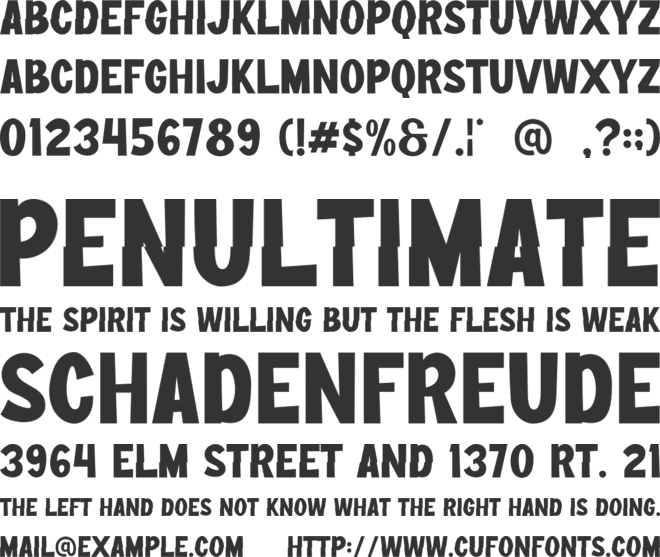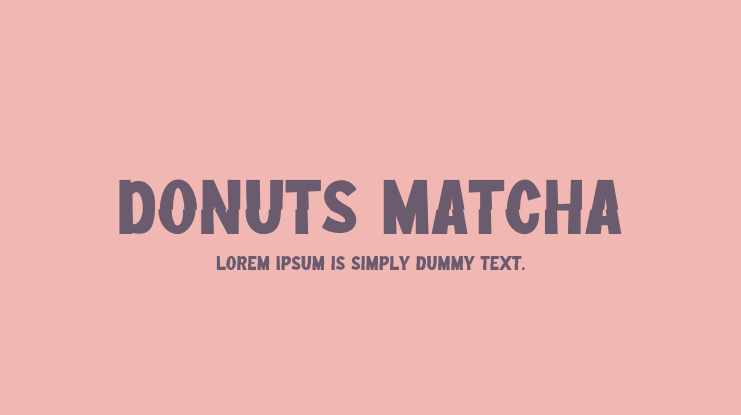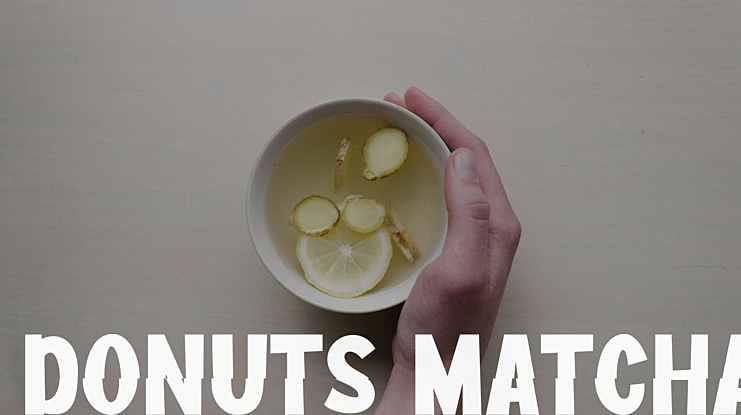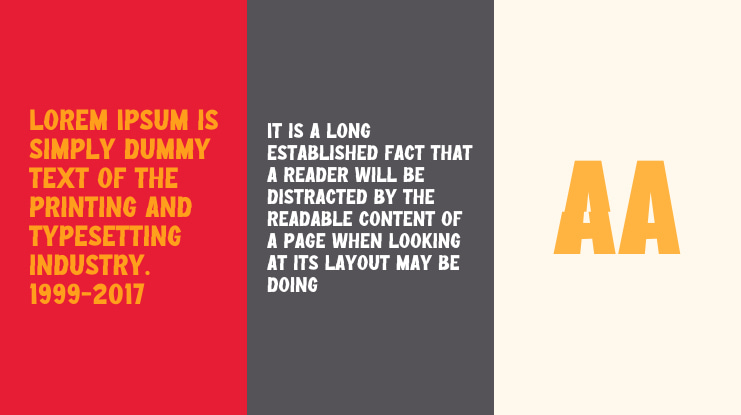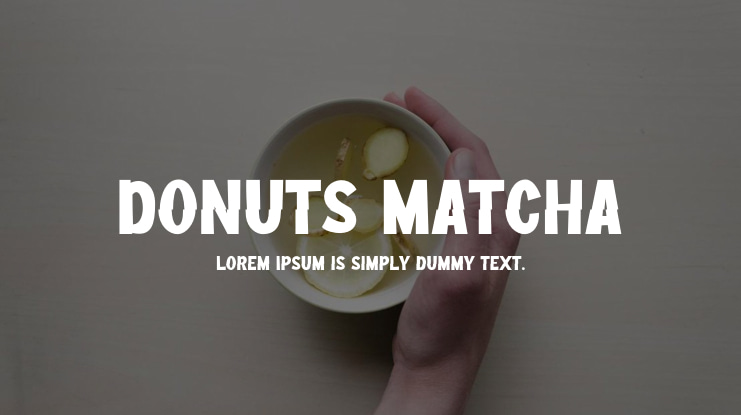
Donuts Matcha Font
Introducing Donuts Matcha Unique Display Font is a modern, trendy, bouncy and cute display font. It has a unique character with wood theme. It is perfect to be combined with invitation card designs, company logos, movie titles, movie names, business cards, book titles, brand names and various other designs.